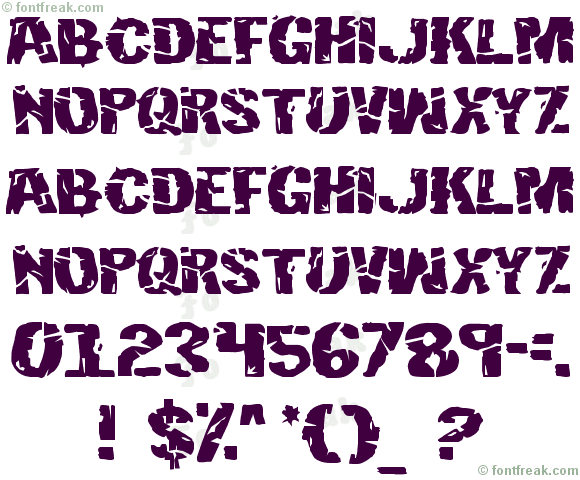
Hulkbusters 3D
Hulkbusters
About Hulkbusters
Hulkbusters, designed by Iconian Fonts, is a striking display font that captures attention with its bold, 3D aesthetic. This decorative typeface features a robust stroke weight and a unique, fragmented design that evokes a sense of strength and dynamism. The letters exhibit a dramatic contrast, with heavy, angular forms that are perfect for making a statement in any project. The spacing between characters is thoughtfully crafted, ensuring readability while maintaining a visually engaging appearance.
This font is ideal for a variety of applications. It shines in the realm of movie posters, where its eye-catching style can effectively convey action and excitement. Additionally, Hulkbusters is perfect for video game graphics, branding for comic book shops, or merchandise related to action genres. Its edgy design also makes it suitable for promotional materials for events, such as conventions or gaming tournaments. Small business owners looking to establish a strong visual identity will find this font particularly useful in creating memorable logos and signage.
Targeting graphic designers and content creators, Hulkbusters offers a versatile option for those aiming to add a unique touch to their work. Whether you are designing a website, crafting social media graphics, or producing print materials, this font can elevate your designs with its distinctive flair.
In conclusion, the Hulkbusters font free download stands out due to its powerful visual impact and versatility. Its bold, fragmented letters not only capture the essence of action and adventure but also allow for creative freedom in various design contexts. With its freeware license, it becomes an accessible choice for anyone looking to enhance their projects with a font that commands attention and inspires creativity.